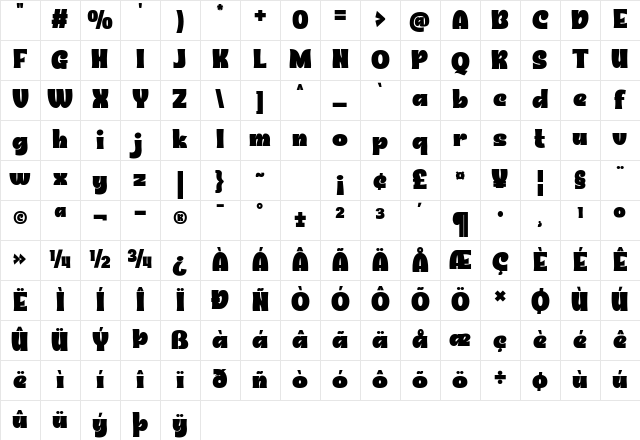
Complete GLASFUR Trial Regular glyph index. Displaying only characters natively supported by GLASFUR Trial Regular font.
GLASFUR Trial is a composed and adaptable typeface that performs quietly and consistently across a wide range of design contexts.